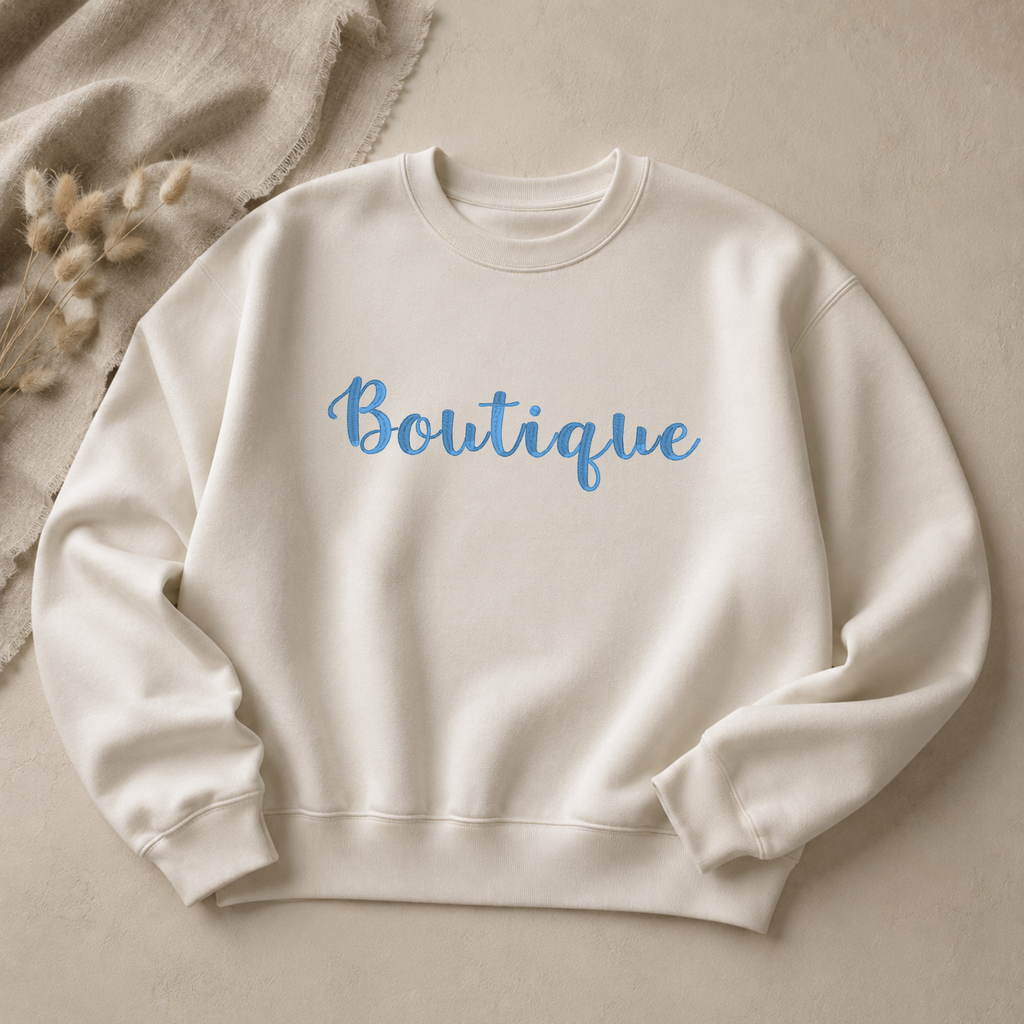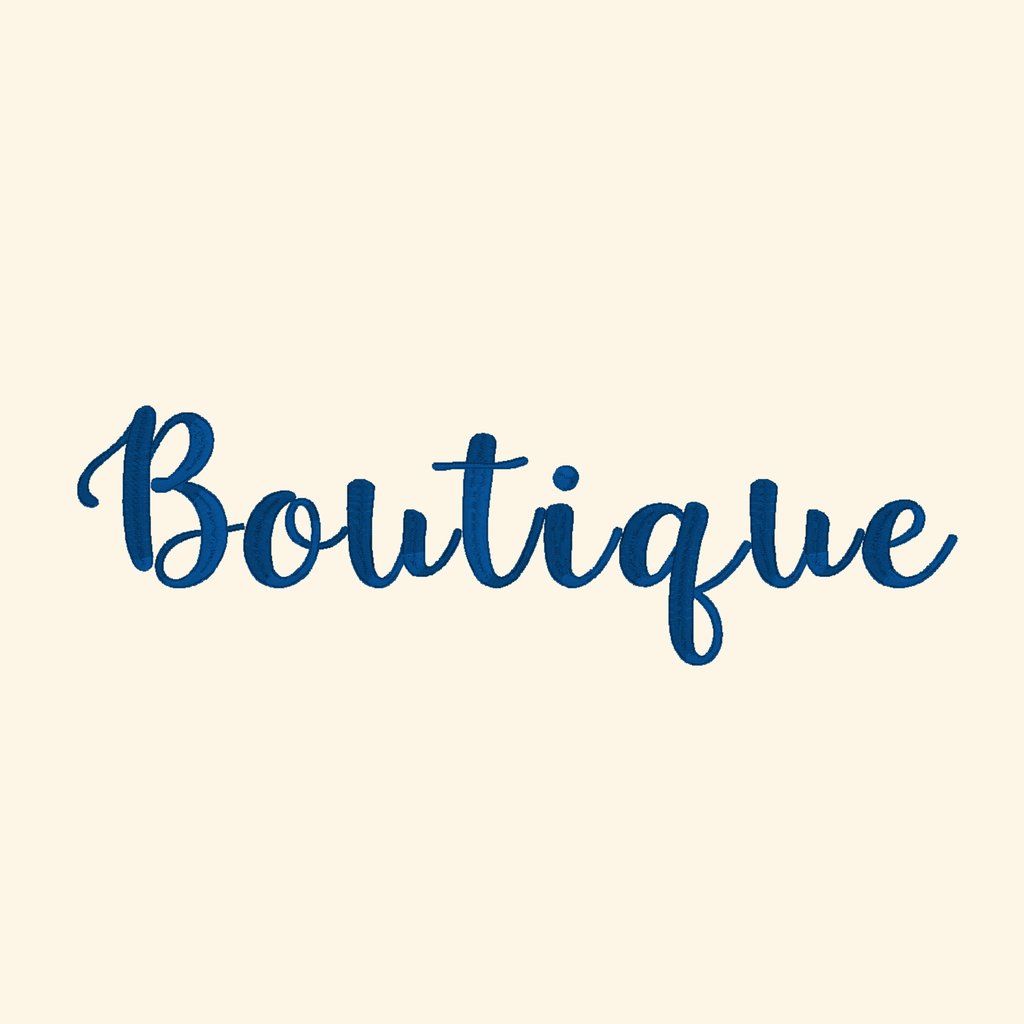
Boutique embroidery font, Script font, Machine embroidery font, 7 Formats + 7 Sizes
🪡Boutique - premium embroidery font.
Take your projects to the next dimension with this dual-color professional machine embroidery alphabet! Specially digitized for high-impact results, this font is the perfect choice for creating any item that requires embroidery.